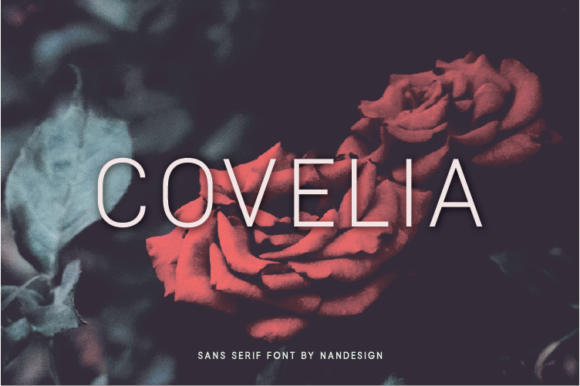
Covelia
About Covelia Font
Covelia is a thin lettered and versatile sans serif font created to complement every project you’re working on.It is perfect for displays, headers, invitations, save the dates, weddings, and so much more!